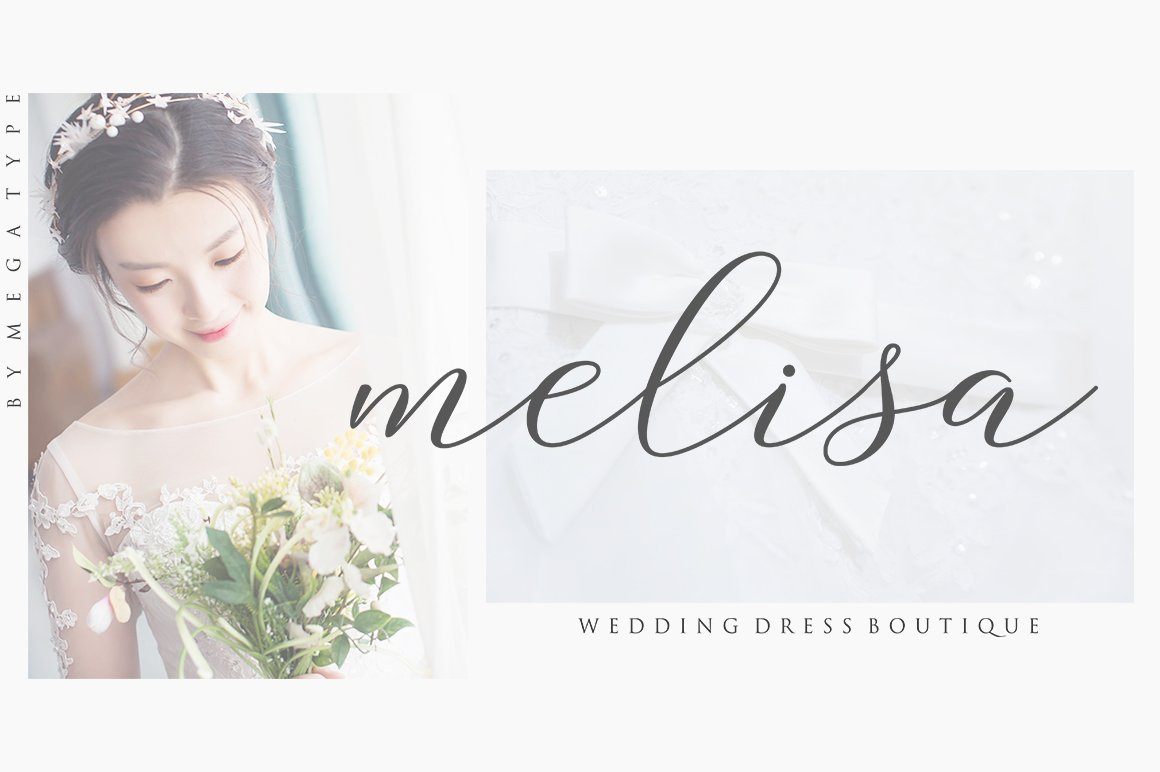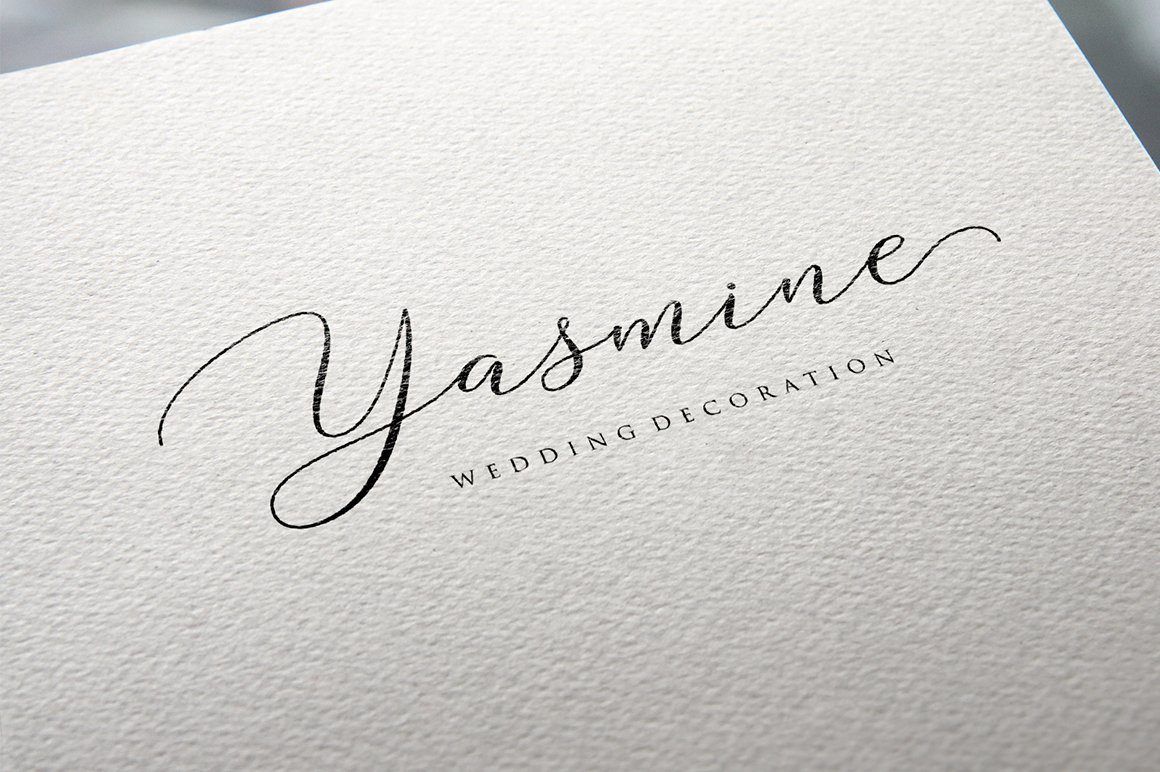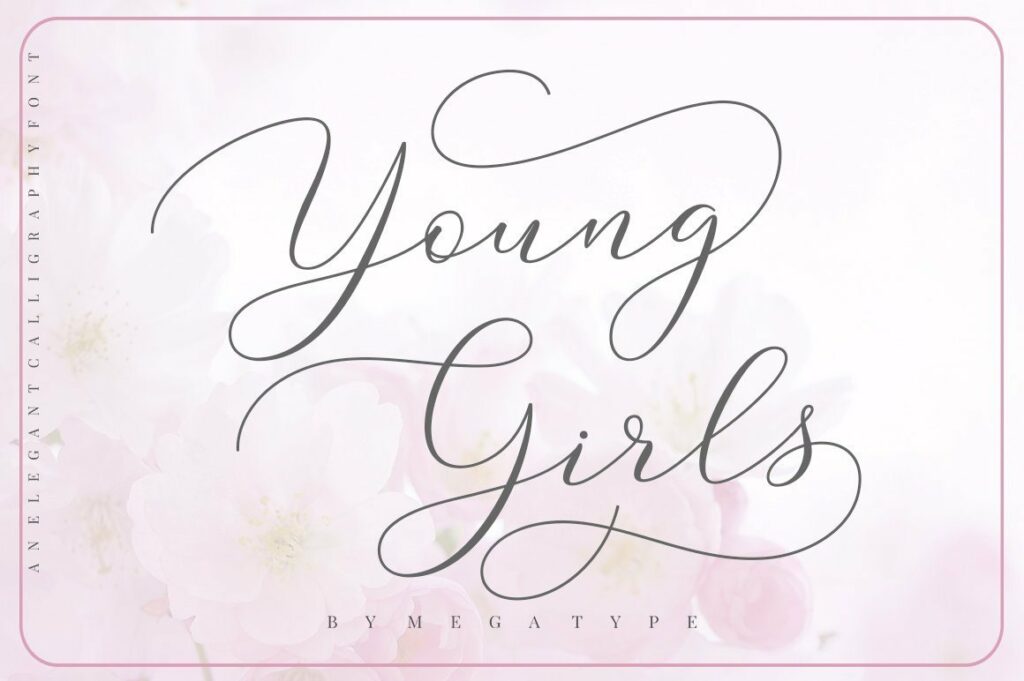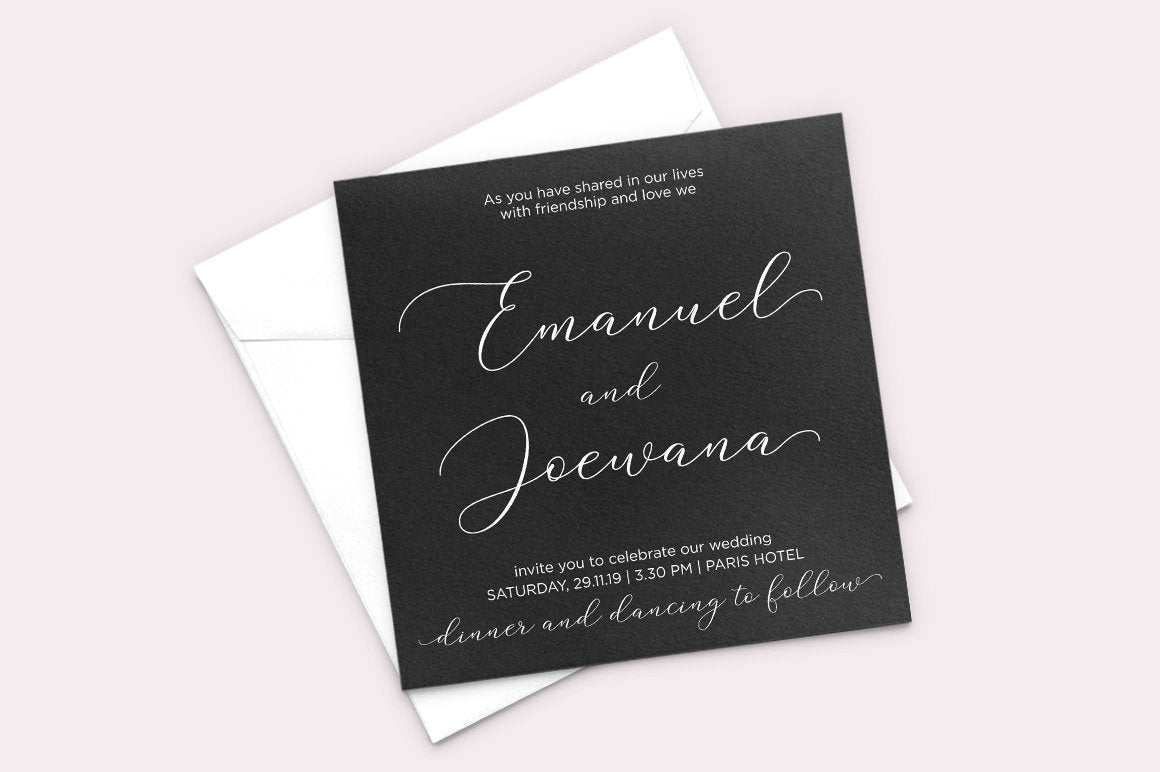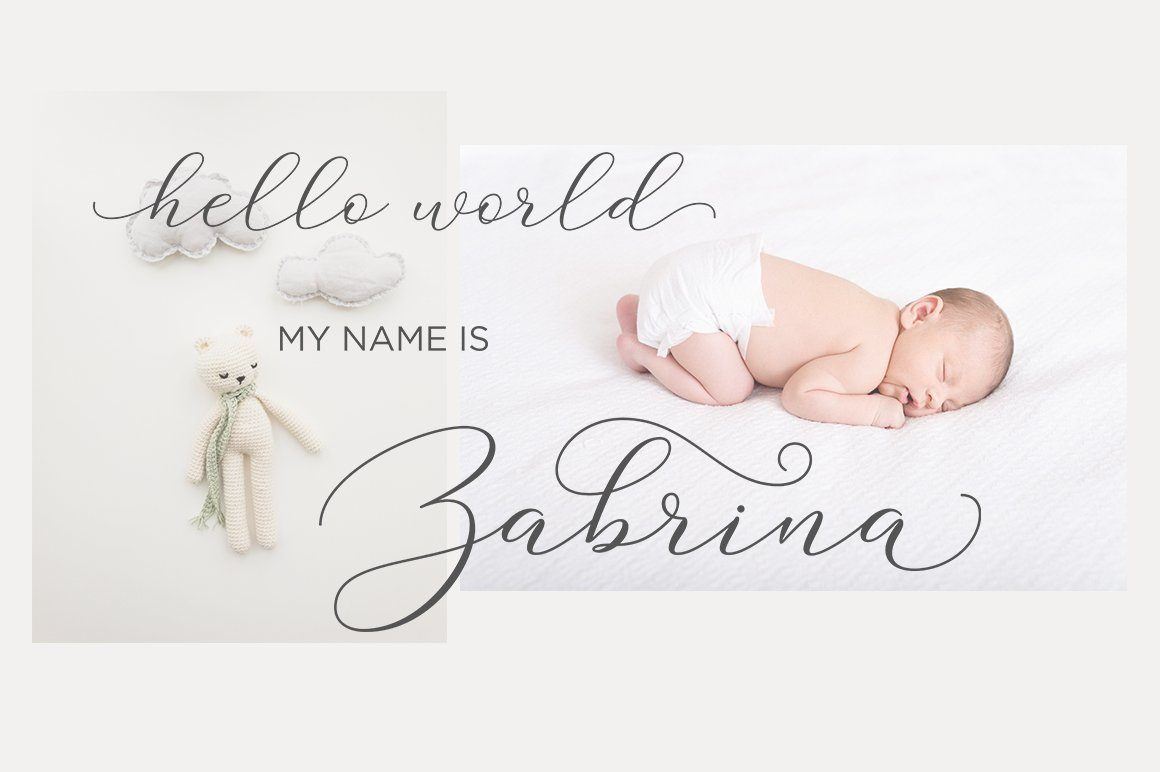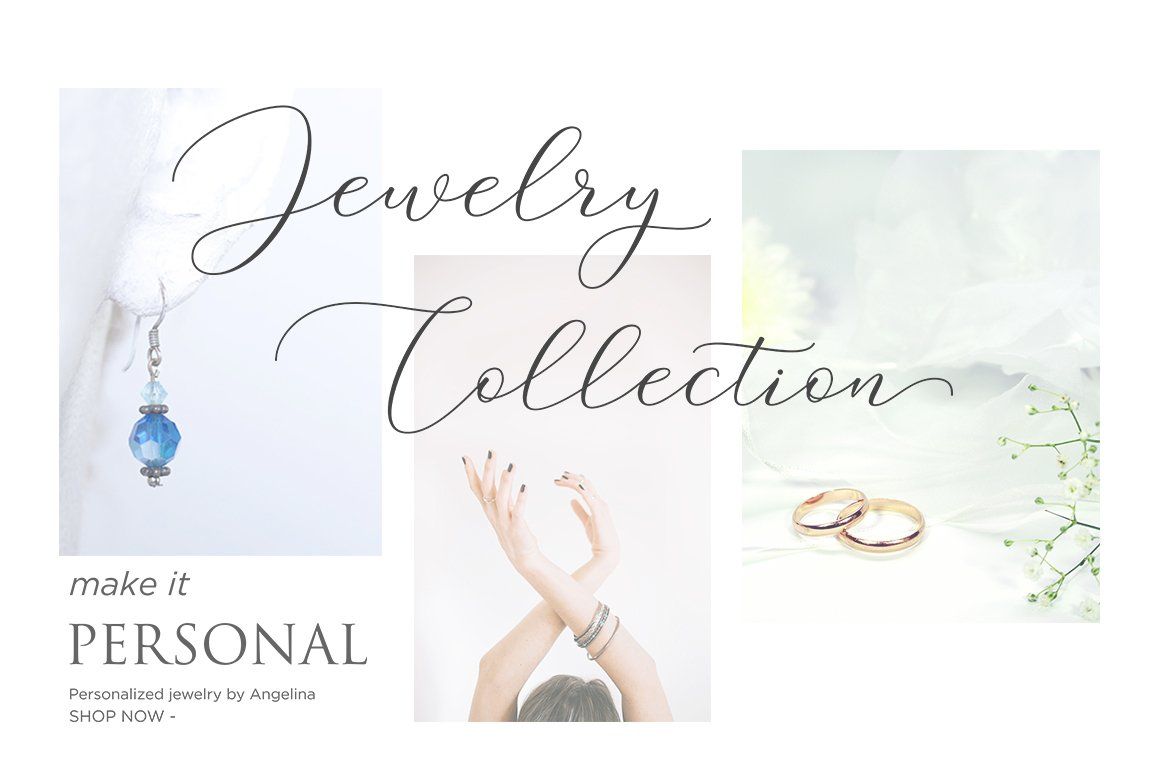
Young Girls Script
About Young Girls Script
INTRODUCING Young Girls Script is elegant calligraphy font, including Regular. This font is casual and pretty with swashes. Can used for various purposes. such as logo, product packaging, wedding invitations, branding, headlines, signage, labels, signature, book covers, posters, quotes and more. Young Girls Script features OpenType stylistic alternates, ligatures and International support for most Western Languages is included. To enable the OpenType Stylistic alternates, you need a program that supports OpenType features such as Adobe Illustrator CS, Adobe Indesign & CorelDraw X6-X7, Microsoft Word 2010 or later versions. Young Girls Script is coded with PUA Unicode, which allows full access to all the extra characters without having special designing software. Mac users can use Font Book , and Windows users can use Character Map to view and copy any of the extra characters to paste into your favourite text editor/app. If you need help or have any questions, please let me know. I’m happy to help 🙂 Thanks & Happy Designing!